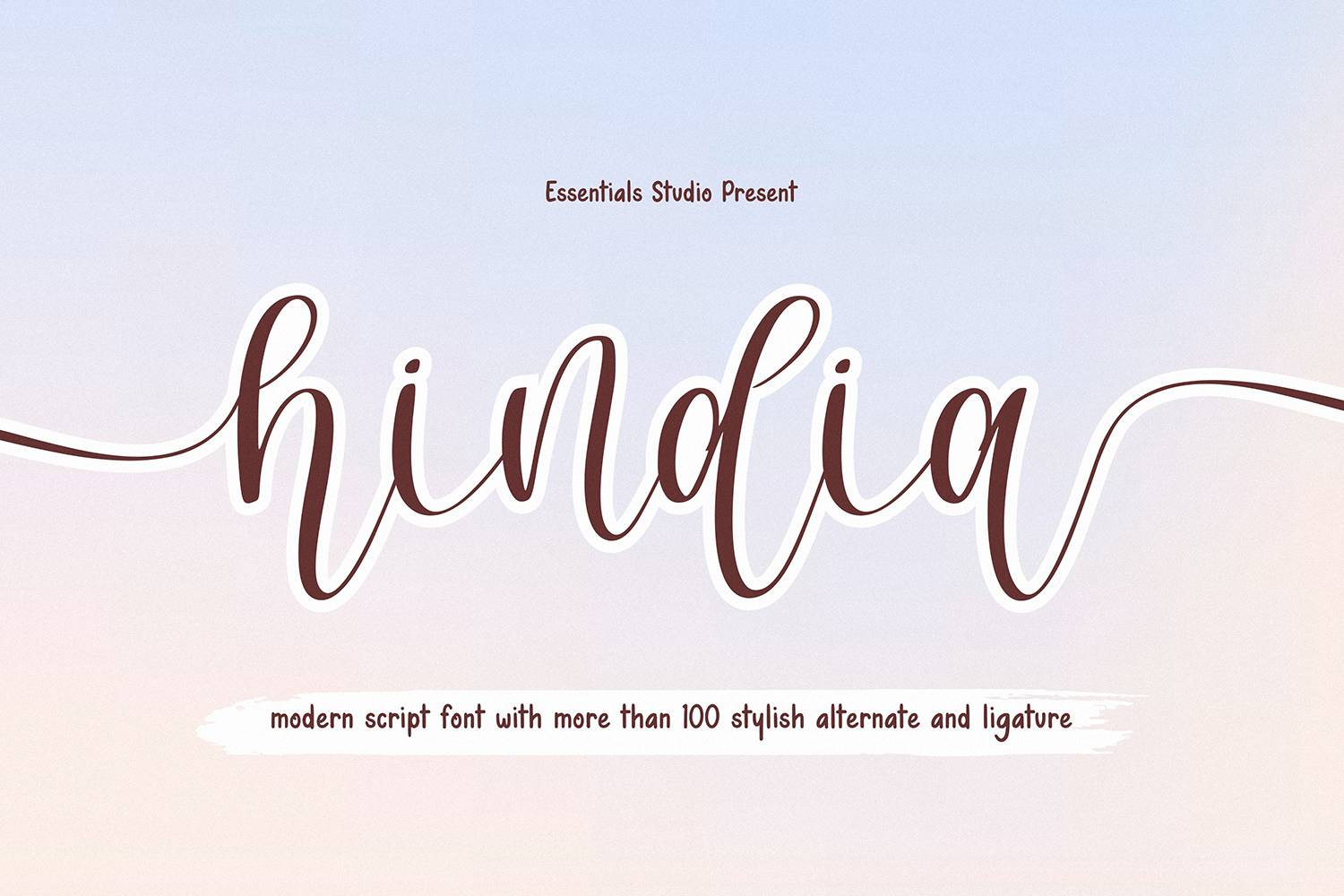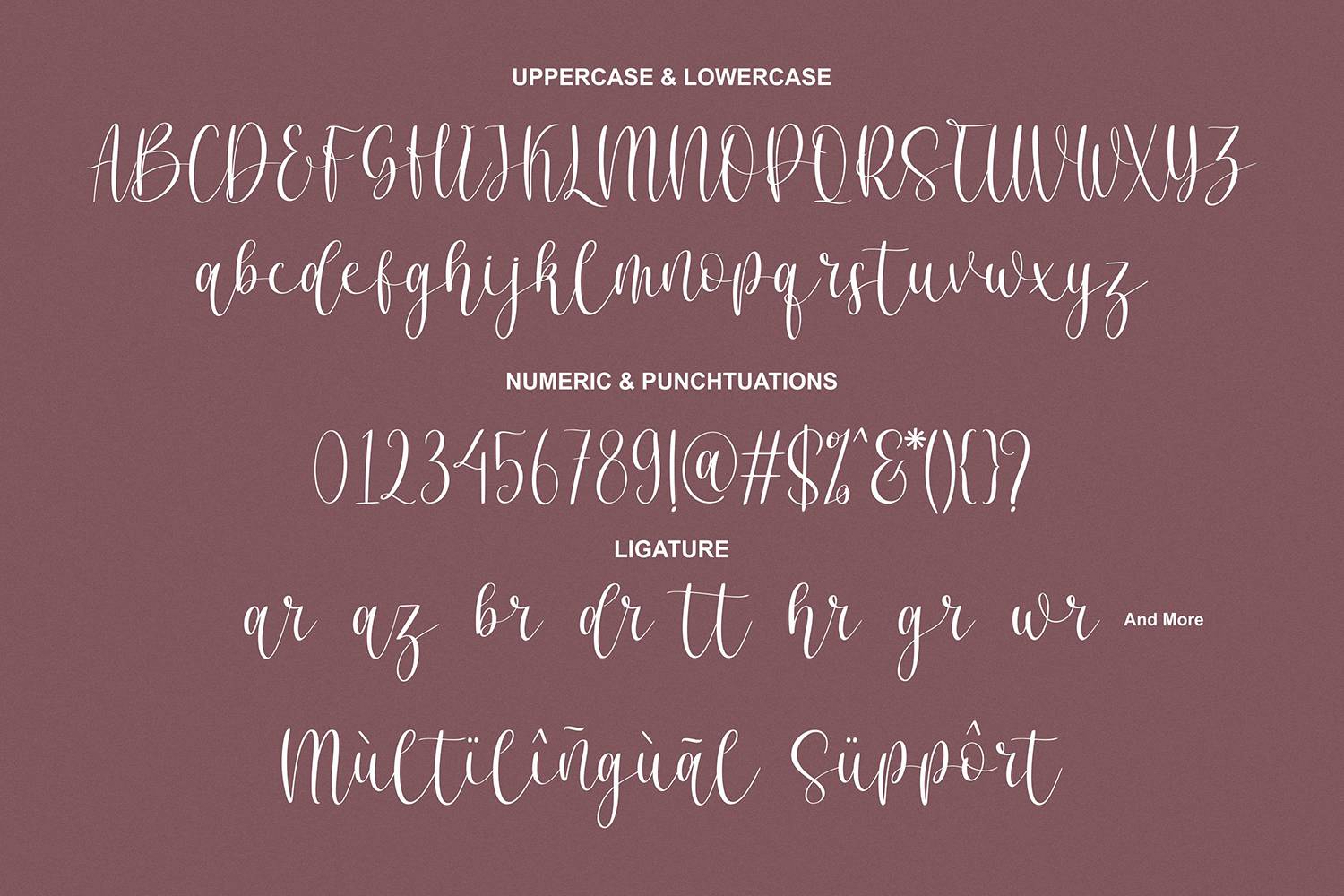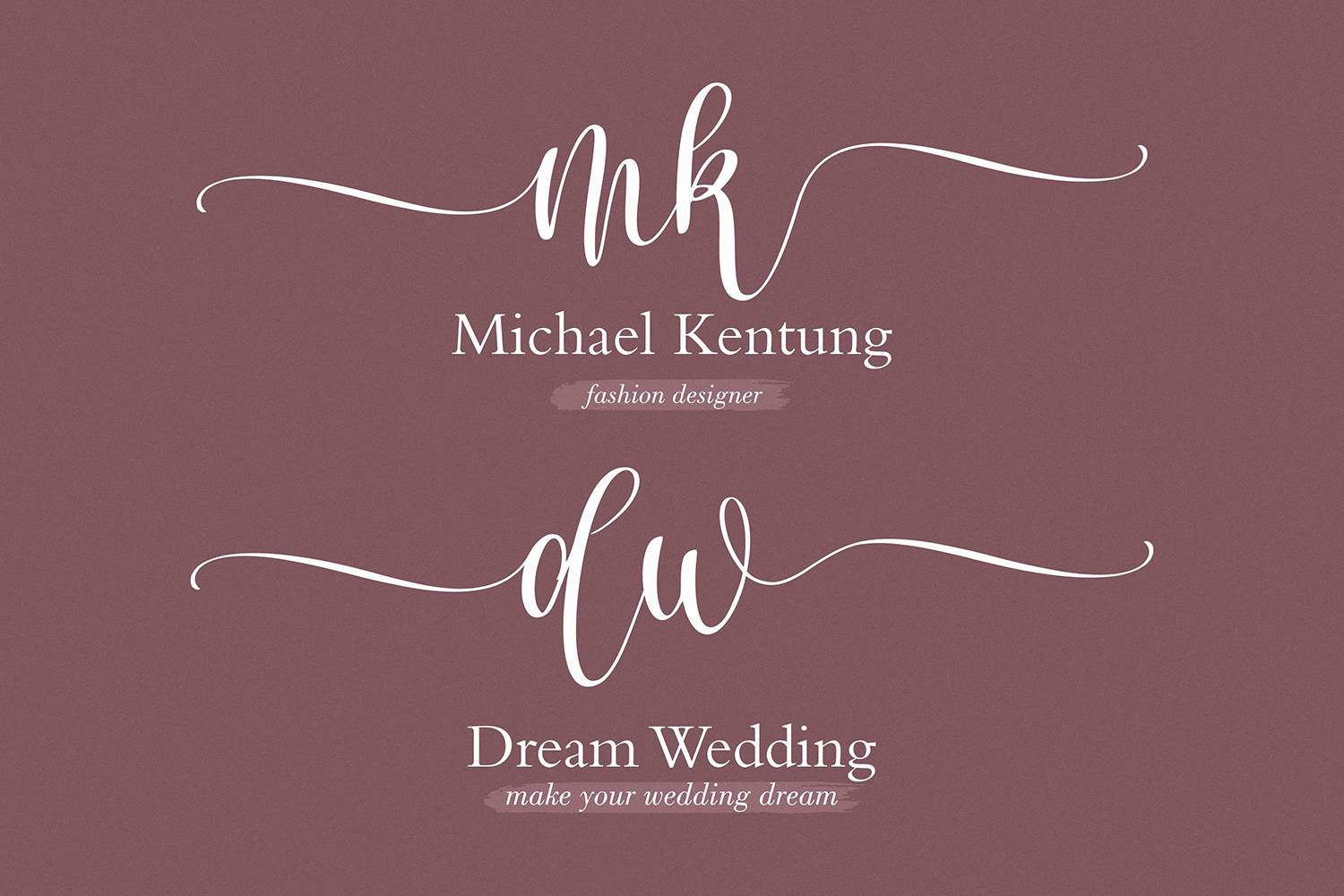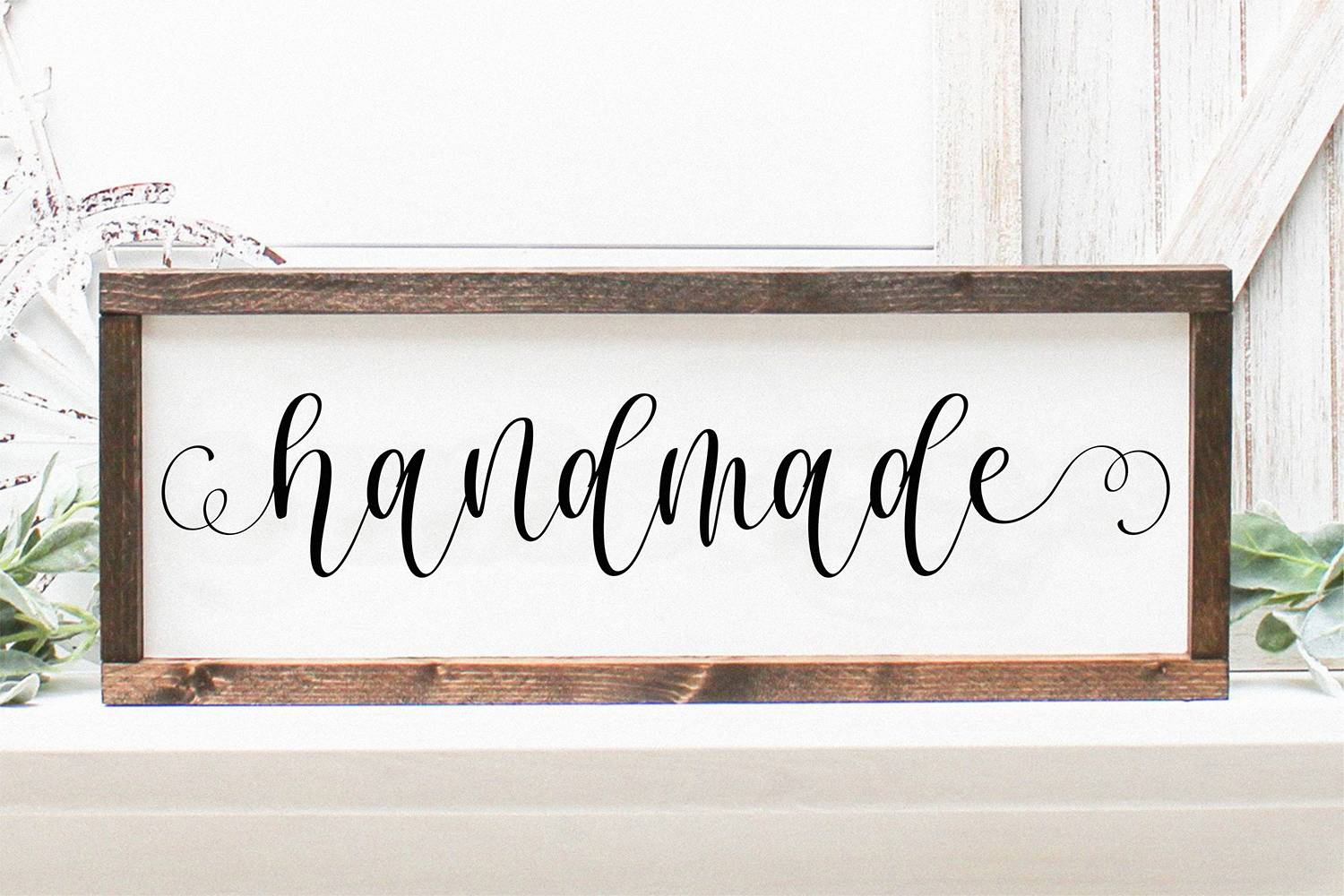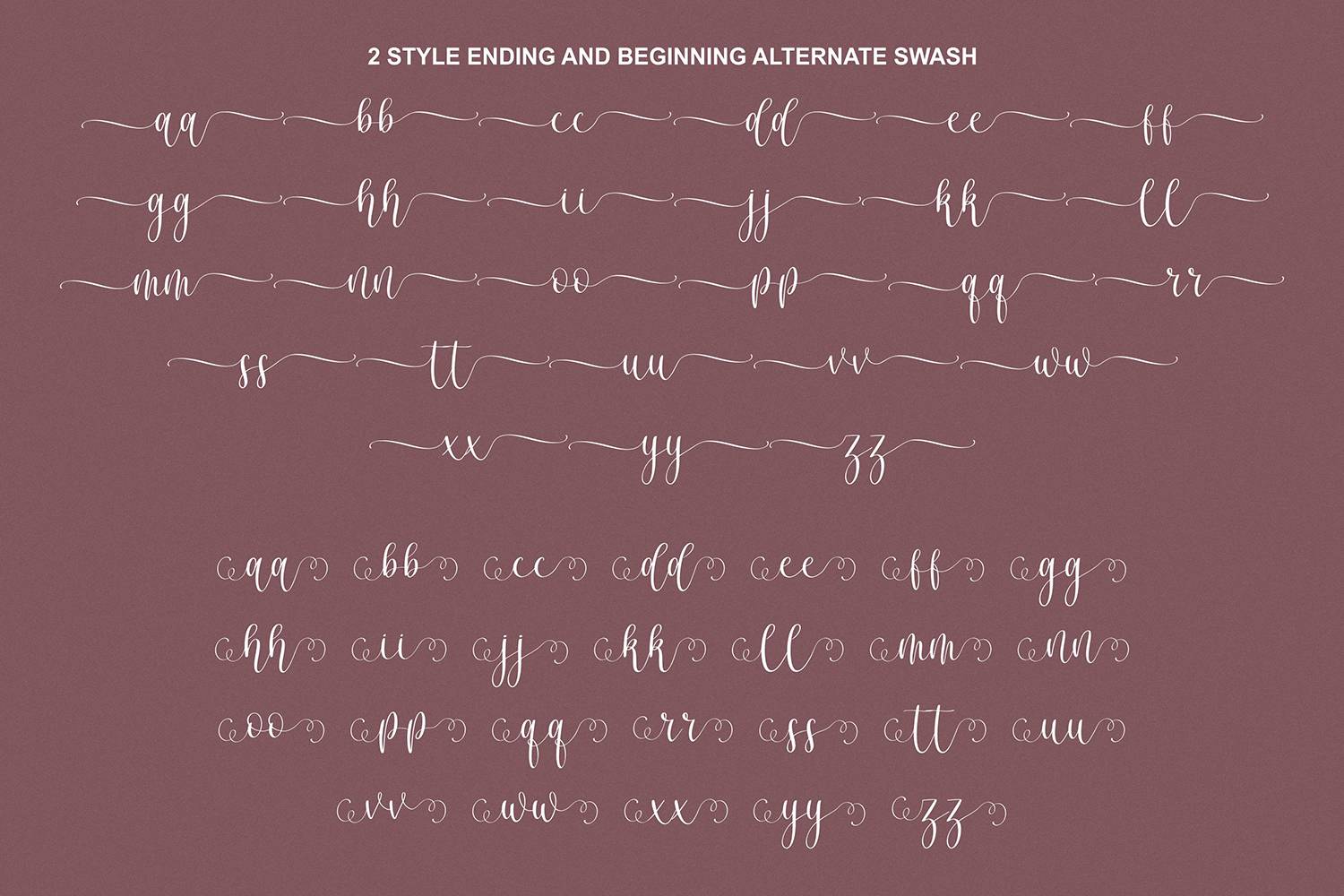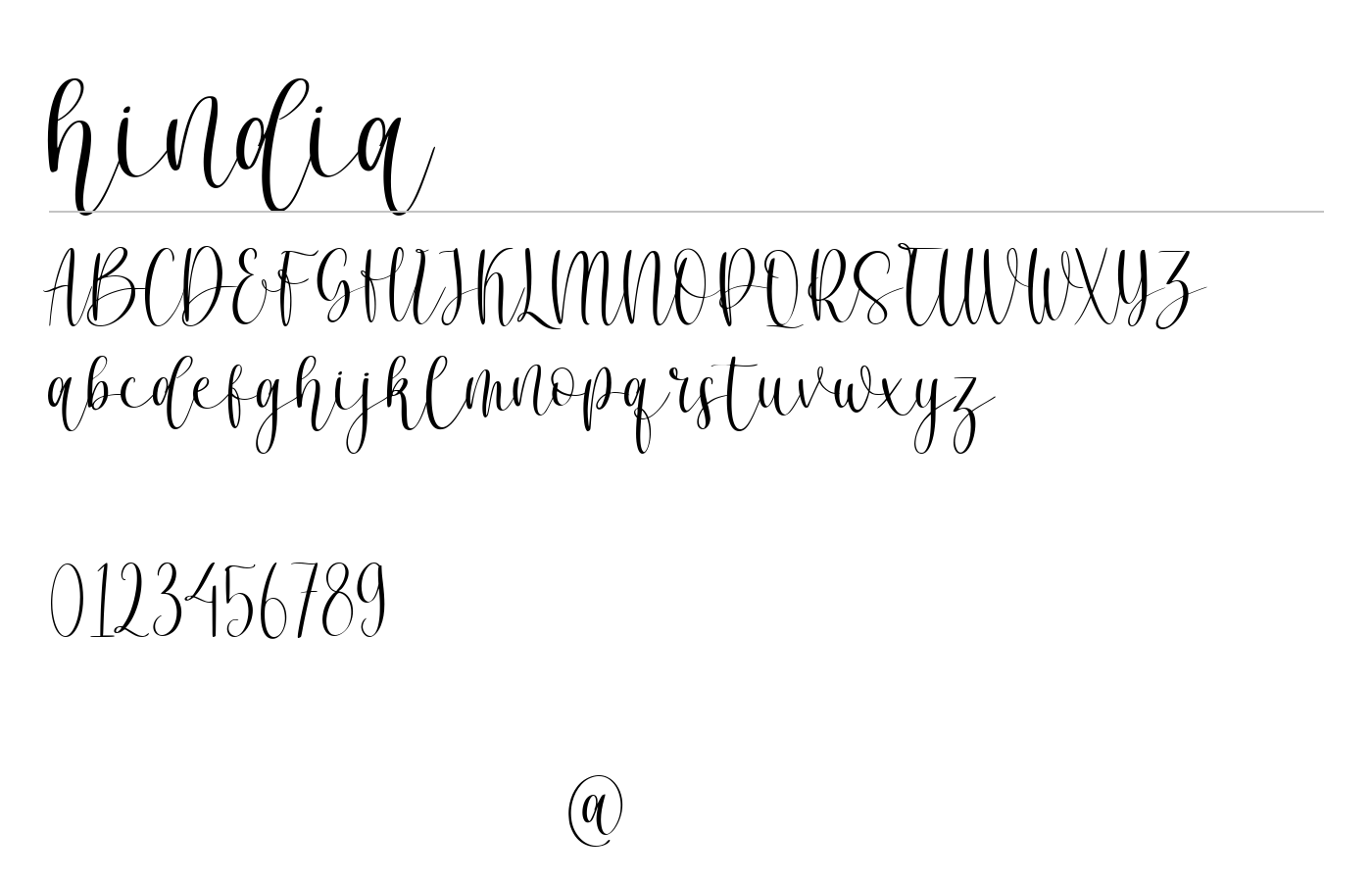
Hindia is an elegant, handwritten script font characterized by its delicate, flowing strokes and slender letterforms that create a graceful and sophisticated appearance. Its tall x-height and stylish swashes make it ideal for creative projects like invitations, branding, and decorative headlines where a personal, artistic touch is desired. This font beautifully blends charm and refinement, perfect for adding a modern yet classic flair to fashion, beauty, or lifestyle designs.
Hindia Font
About Hindia Font